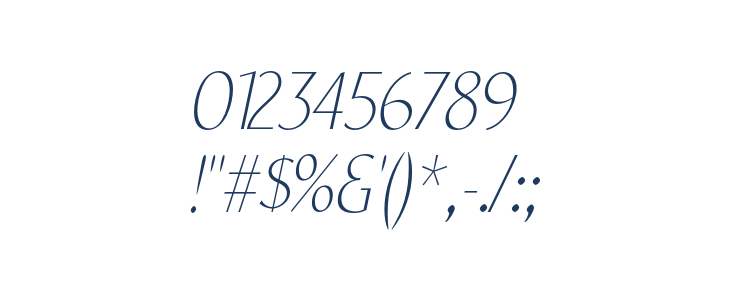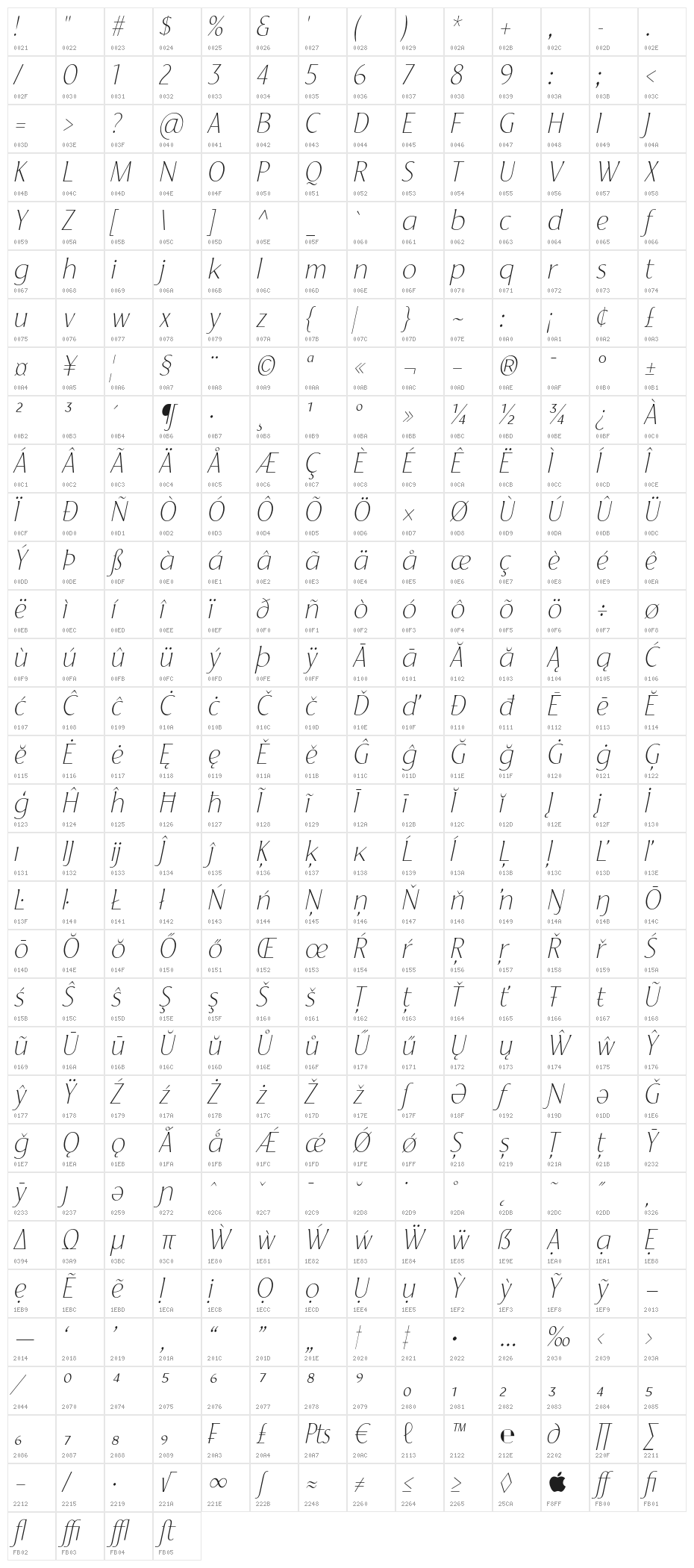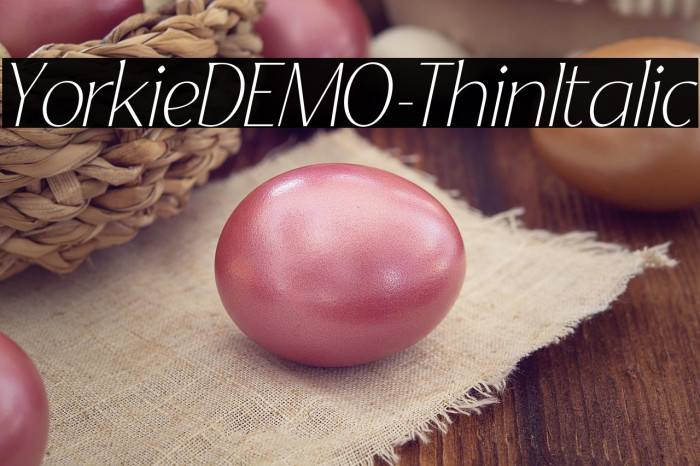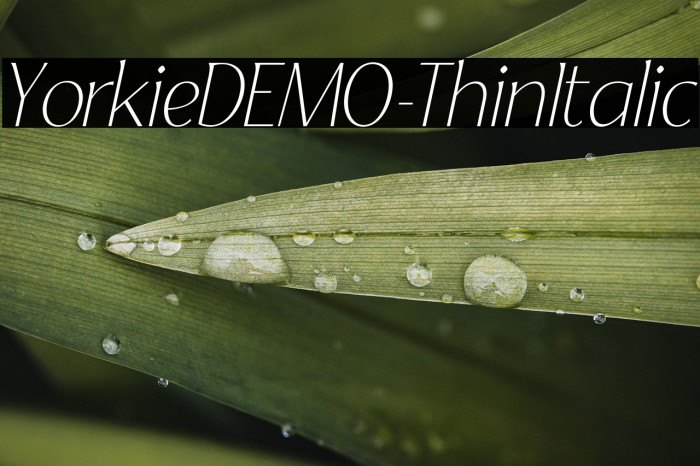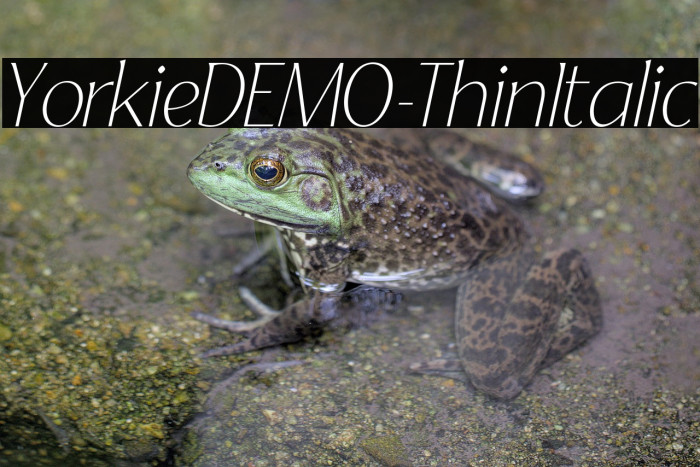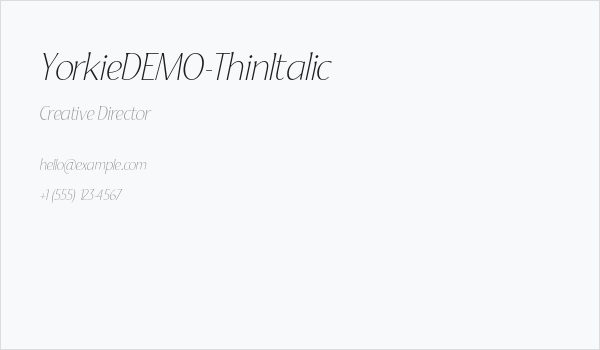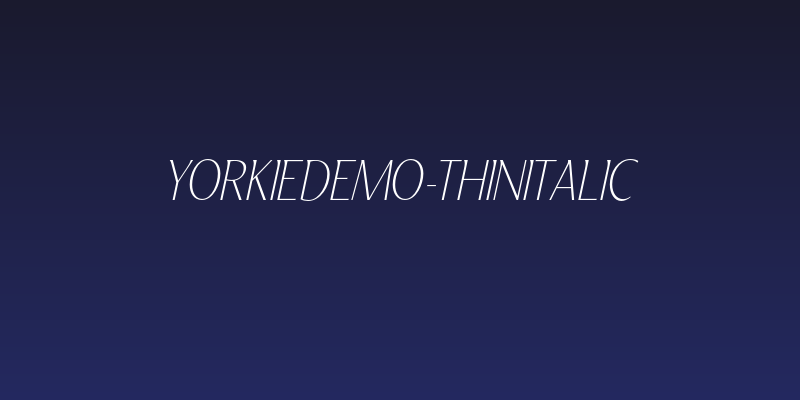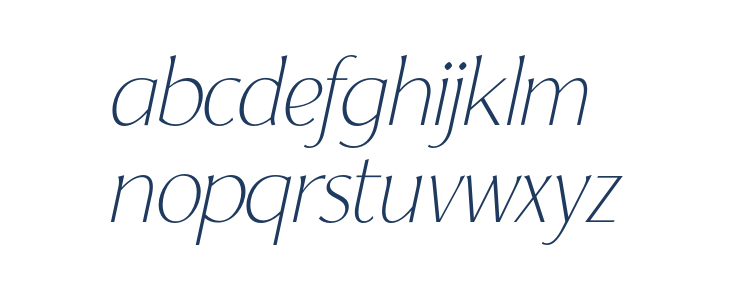
YorkieDEMO-ThinItalic Font
YorkieDEMO-ThinItalic Description
This font features an elegant and sophisticated design with thin, elongated letterforms that convey a sense of modernity and grace. The italic style adds a dynamic and fluid motion to the text, making it suitable for creative and stylish applications. The characters are well-proportioned with a slight slant, enhancing readability while maintaining a refined aesthetic. The numerals and special characters are crafted with the same attention to detail, ensuring consistency across all elements. This font's thin strokes and high contrast make it ideal for projects that require a touch of elegance and sophistication.
| Overall Style | Elegant and sophisticated |
| Proposed Projects | Ideal for fashion magazines, luxury branding, wedding invitations, and elegant editorial layouts. |